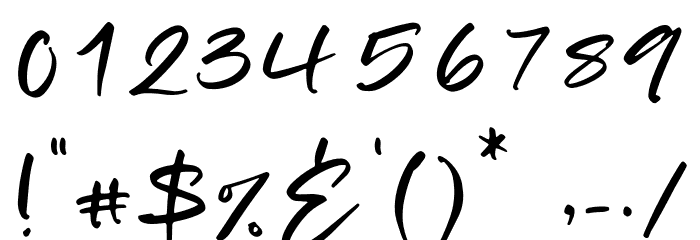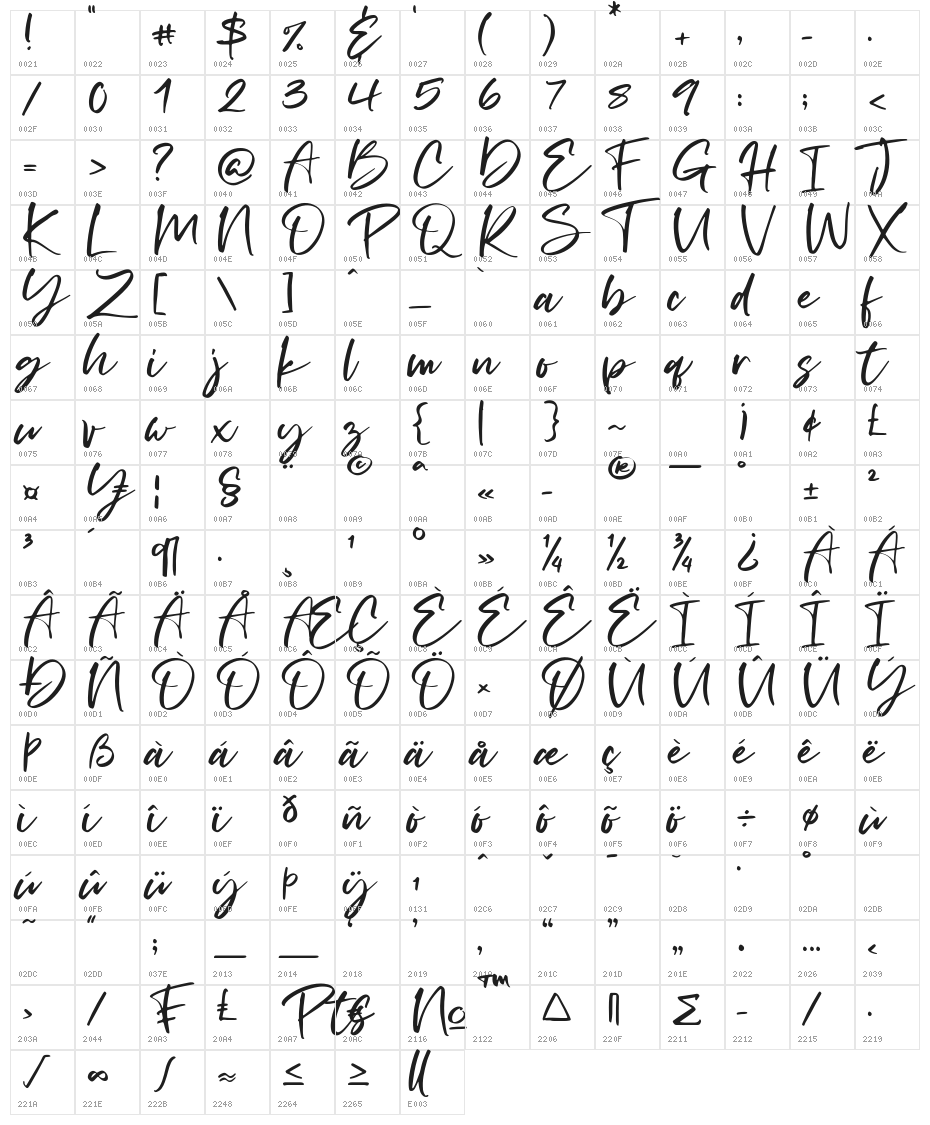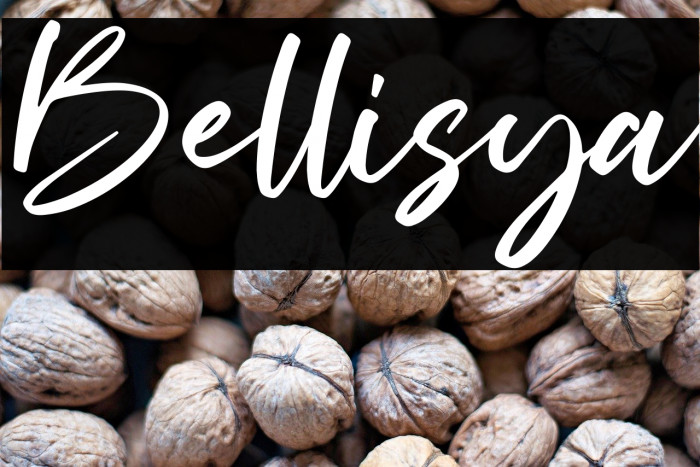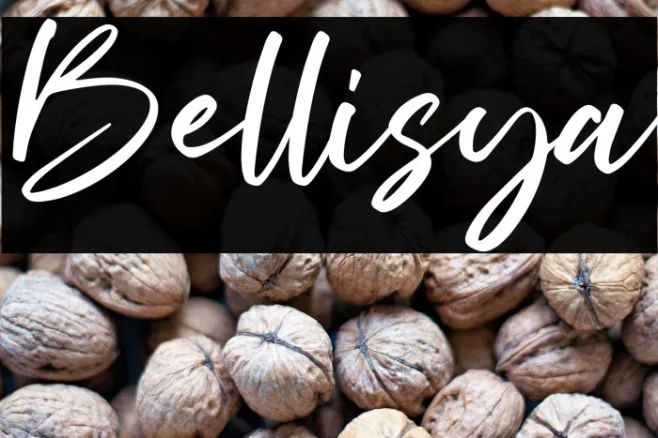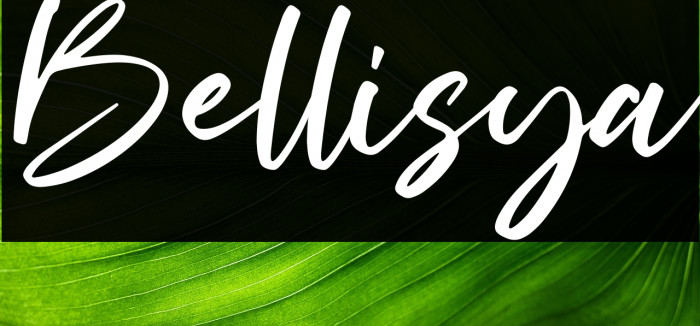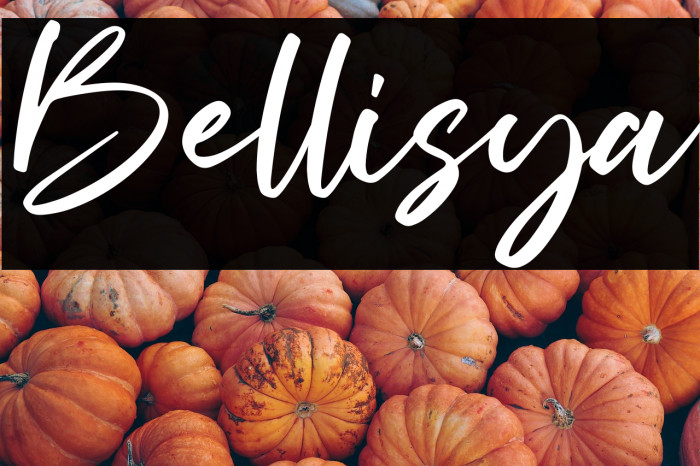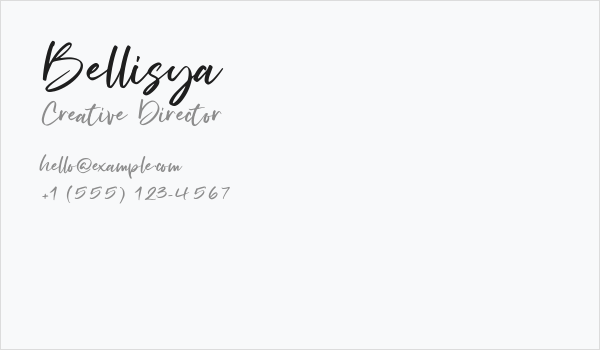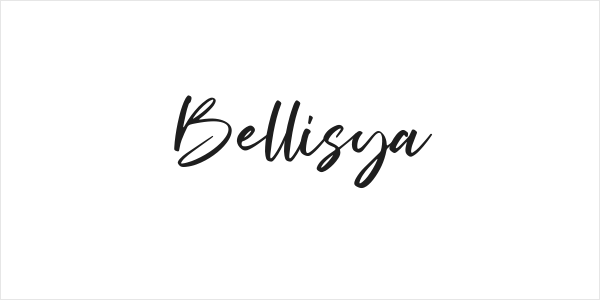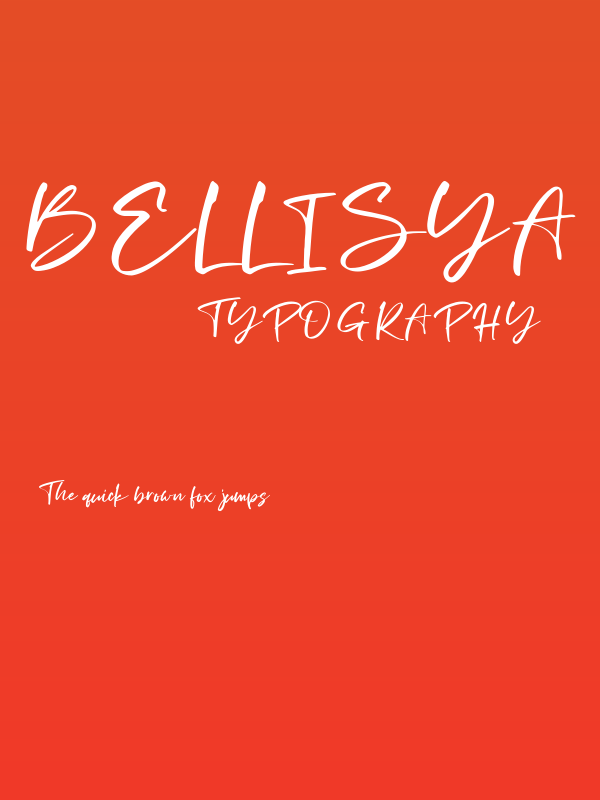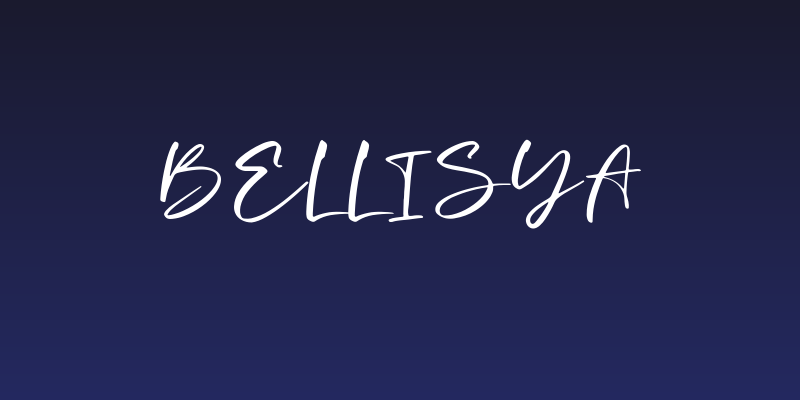
Bellisya Font
Bellisya Description
This font features a lively and dynamic handwritten style, characterized by its fluid and cursive letterforms. The uppercase letters are slightly more structured, while the lowercase letters exhibit a more free-flowing and organic appearance. The numbers and special characters maintain the same energetic and playful aesthetic, making the font versatile for various design applications. The strokes are consistent in width, providing a balanced and harmonious look. This font is perfect for projects that require a personal and informal touch, such as invitations, greeting cards, and creative branding.
| Proposed Projects | Ideal for invitations, greeting cards, creative branding, and personal projects. |